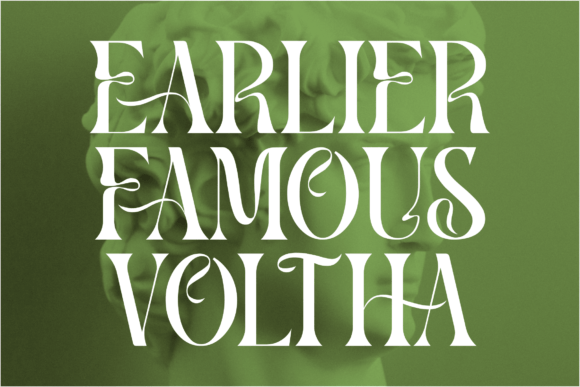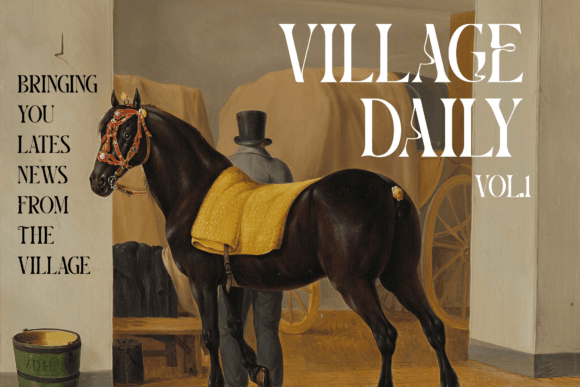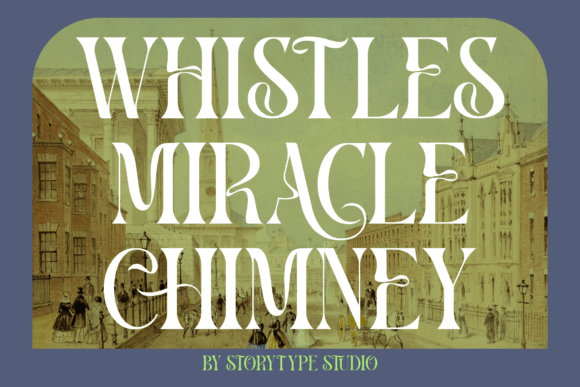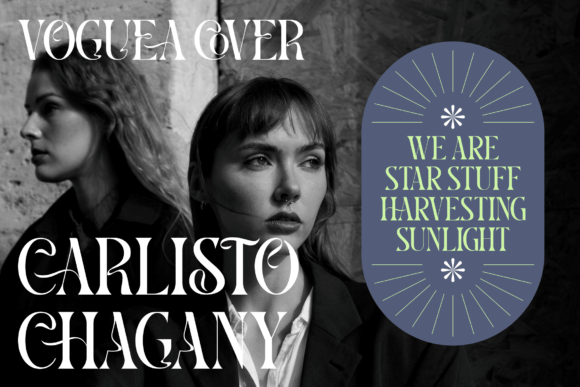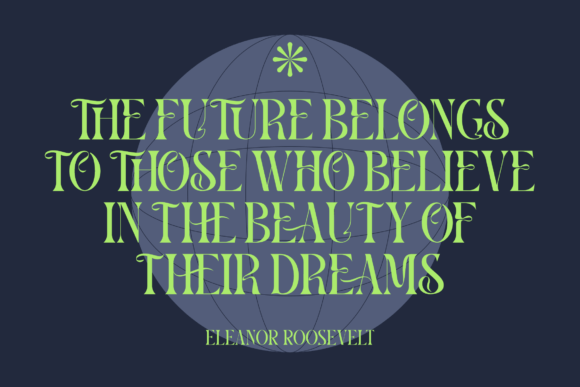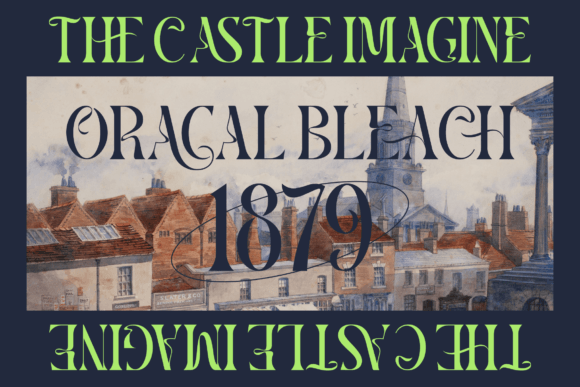
Introducing Casthelo Font: A Timeless Serif Typeface for Elegant Designs
In the world of typography, a well-crafted font can elevate a design from ordinary to extraordinary. For designers and crafters seeking a serif modern and classic typeface that exudes elegance and sophistication, Casthelo Font is an exceptional choice. This stunning typeface boasts a unique style and modern look, making it perfect for a wide range of applications, from luxury logos and book or movie titles to fashion brands, magazines, and more.
What Makes Casthelo Font Stand Out?
Casthelo Font is a masterfully designed serif typeface that seamlessly blends traditional and modern elements. Its distinctive style is characterized by clean lines, precise curves, and a sophisticated flair. This font is ideal for designers who want to add a touch of elegance and refinement to their work. Whether you’re creating a logo, title design, or body text, Casthelo Font is sure to impress.
Perfect for Elegant and Luxury Designs
Casthelo Font is specifically designed for elegant and luxury designs, making it an excellent choice for:
- Luxury logos: Create a lasting impression with a sophisticated logo that exudes high-end quality.
- Book or movie titles: Add a touch of glamour to your title designs with Casthelo Font’s classic and modern flair.
- Fashion brands: Elevate your fashion brand with a font that embodies style, sophistication, and elegance.
- Magazines: Use Casthelo Font to create visually stunning magazine layouts that showcase your content in style.
- Clothes and lettering: Add a touch of luxury to your clothing designs, lettering projects, and quotes with this versatile font.
- Access a wide range of glyphs: Explore the font’s extensive character set, including alternative letters, ligatures, and ornaments.
- Create stunning text arrangements: Use the font’s ligatures and glyphs to create visually appealing text arrangements that elevate your designs.
Why Choose Casthelo Font?
With Casthelo Font, you can:
- Elevate your designs: Add a touch of elegance and sophistication to your work with this stunning serif typeface.
- Enhance your creativity: Experiment with Casthelo Font’s unique style and modern look to create innovative and captivating designs.
In conclusion, Casthelo Font is a timeless serif typeface that offers a unique blend of classic and modern elements. Its elegant and sophisticated design makes it perfect for a wide range of applications, from luxury logos and book or movie titles to fashion brands and magazines. With PUA encoding, you can easily access the font’s extensive character set, making it an excellent choice for designers and crafters seeking to elevate their designs.
Whether you’re a seasoned designer or a crafty enthusiast, Casthelo Font is sure to inspire your creativity and help you create stunning designs that leave a lasting impression.